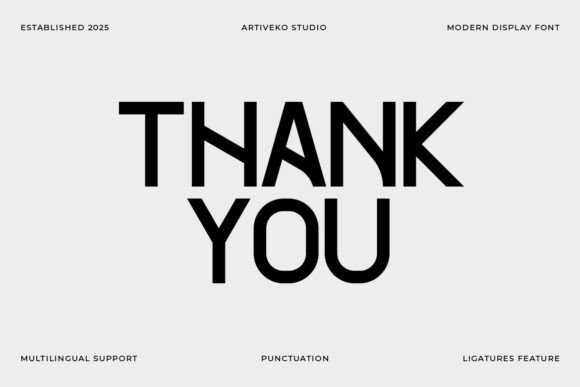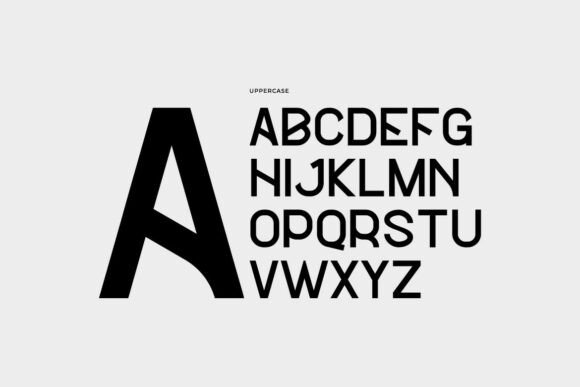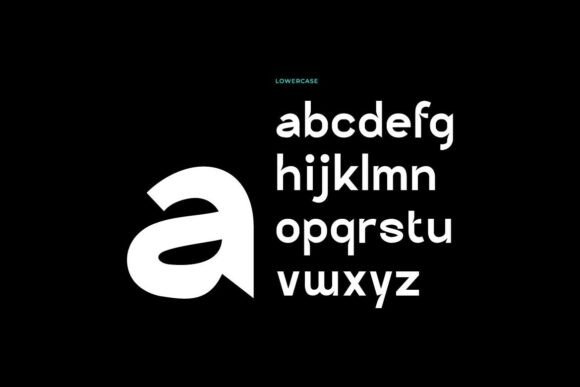
Introduction to Northe Font
Have you ever found yourself staring at a blank canvas, eager to bring a new design project to life? The spark of creativity is exhilarating, but it’s often the details that can make or break a piece. A well-chosen font can elevate your work from ordinary to extraordinary, and that’s where the Northe Font comes in – a high-quality, contemporary sans serif font that’s designed to make a lasting impression.
Whether you’re working on a branding project, crafting a UI/UX interface, or simply need a reliable design resource, the Northe Font is an excellent choice. Its clean lines, geometric construction, and refined curves make it perfect for a wide range of applications, from website headers to social media graphics. And the best part? It’s available for a free download, allowing you to bring your creative vision to life without breaking the bank.
Key Features of Northe Font
- Unique, modern design style that sets it apart from other fonts, ideal for creative projects and designs.
- Includes a wide range of characters, including Latin and Cyrillic alphabets, for use in various languages.
Honest Review: Northe Font
I recently had the chance to work with the Northe Font, and I must say it’s been a game-changer for my creative project. This high-quality font has been a great addition to my design resource library.
- ✨ Clear and readable text: The Northe Font has a beautiful, modern aesthetic that makes it perfect for a variety of design applications.
- ✨ Wide language support: I was impressed to find that the font supports multiple languages, making it a great option for international design projects.
- ✨ Transparent background: The font’s transparent background makes it easy to overlay on top of other design elements, adding a professional touch to my designs.
However, I did encounter a few limitations while working with the Northe Font. ⚠️ Some of the characters feel a bit inconsistent in terms of spacing, which can be distracting at times.
Overall, I’m really impressed with the Northe Font. It’s a free download that’s definitely worth checking out, especially if you’re working on a creative project that requires a modern and sleek aesthetic. With its high quality and wide language support, it’s a great addition to any design resource library.
Common Use Cases for Northe Font
The Northe Font is ideal for creative projects, such as graphic design, digital art, and typography. Use it to create logos, icons, graphics, and other design elements that will make your project stand out. The font’s high-quality features make it perfect for professional designers and artists looking to create stunning visual effects.